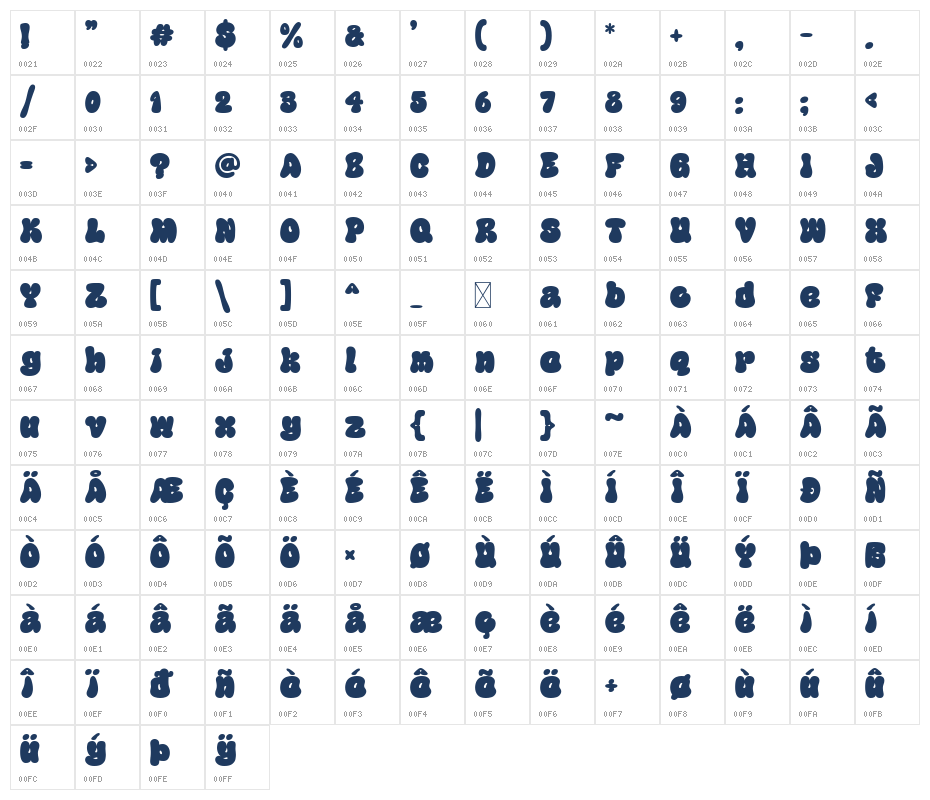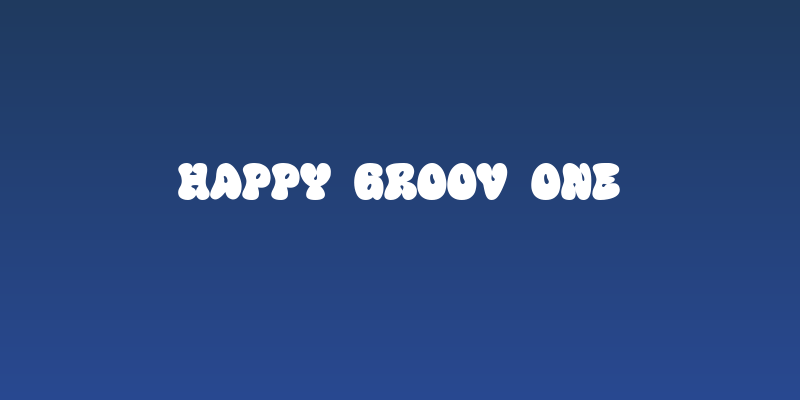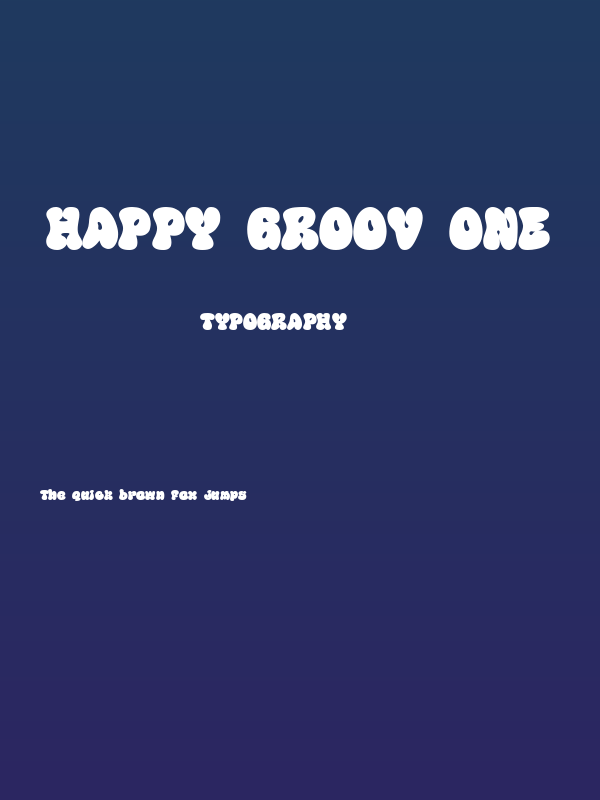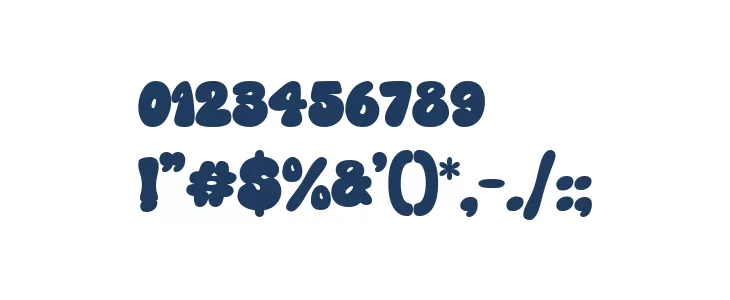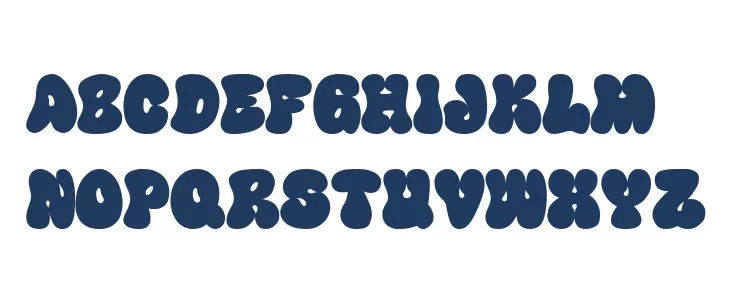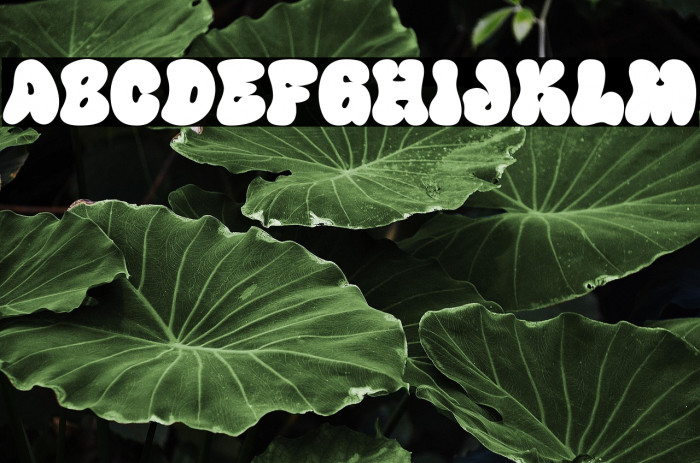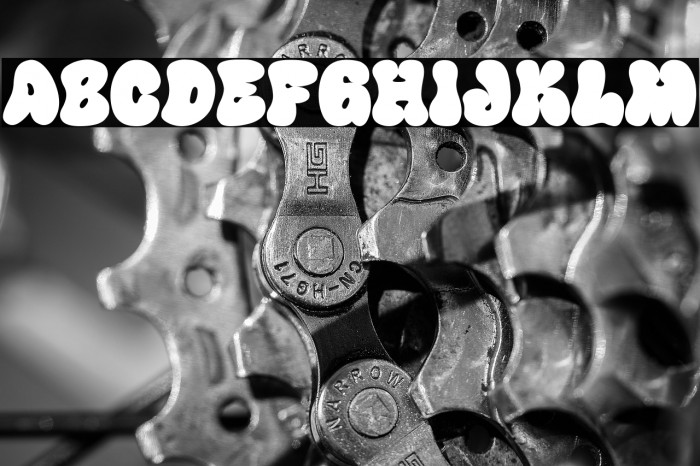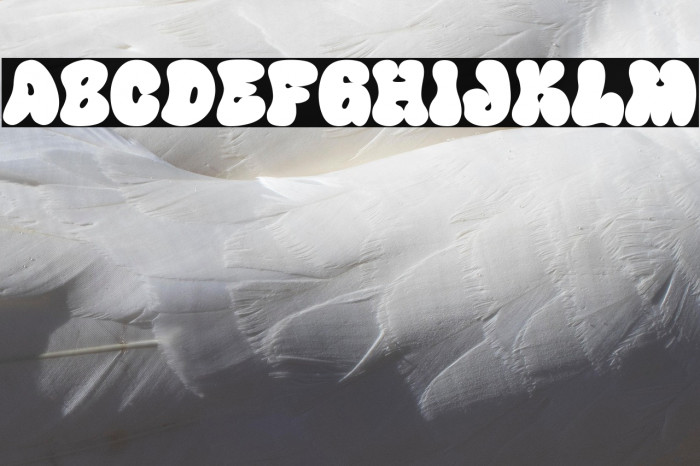
Happy Groov One Font
Happy Groov One Description
A bold, rounded, playful display font with a bubbly, cartoonish style.
Fonts by PutraCetol Studio
| Overall Style | Playful, Cartoonish, Retro |
| Use Case | Headlines, Posters, Logos, Packaging |